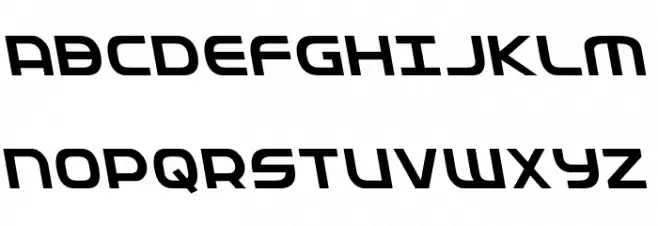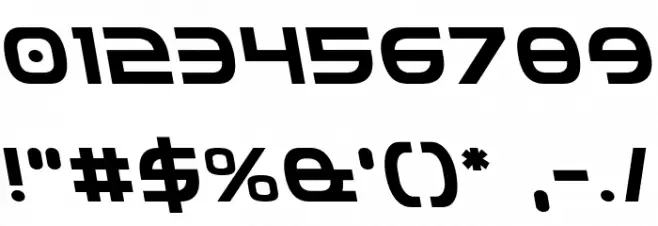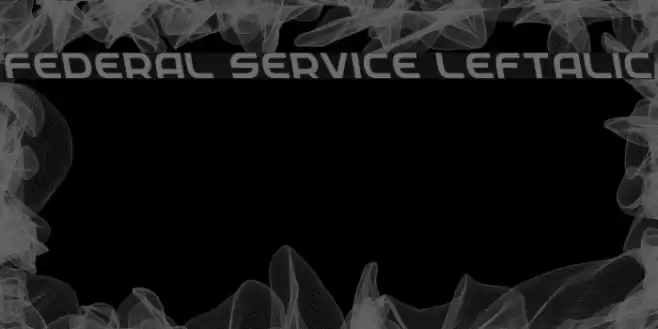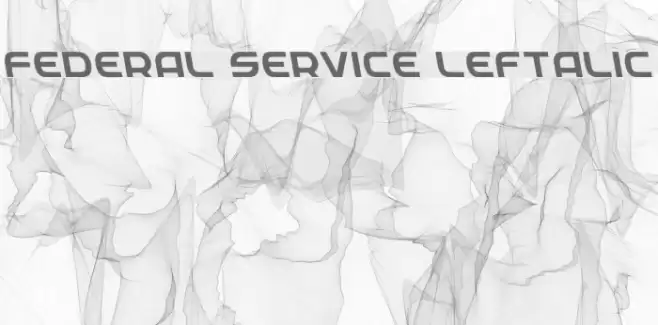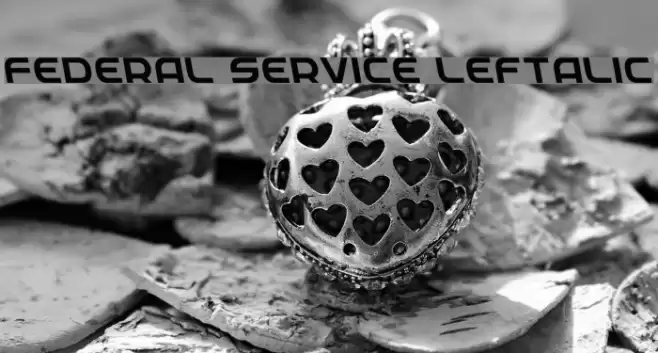
Federal Service Leftalic
This font features a modern and sleek design with a slightly italicized slant, giving it a dynamic and forward-moving appearance. The characters are bold and have a geometric structure, with consistent stroke widths that provide a uniform look. The rounded edges soften the overall appearance, making it approachable while maintaining a professional tone. The numbers and special characters are designed to match the style of the letters, ensuring a cohesive look across all text. This font is well-suited for projects that require a contemporary and clean aesthetic.
A modern, italicized font with bold, geometric characters and rounded edges.
- Proposed Projects: Ideal for branding, advertising, digital media, and modern web design projects.
- Use Case: Headlines, Logos, Digital Media